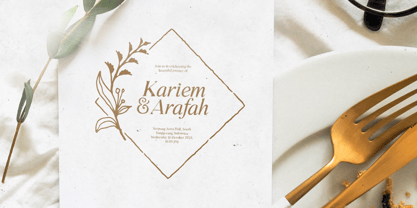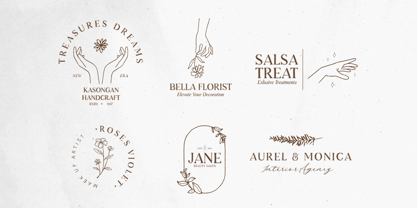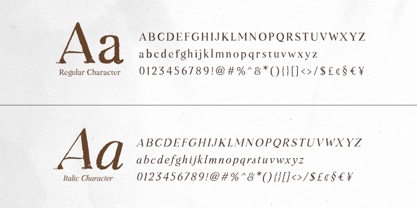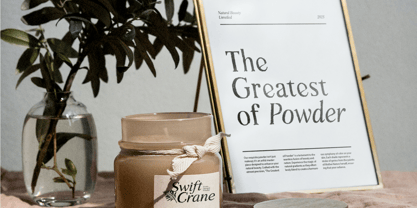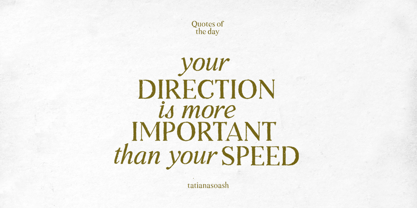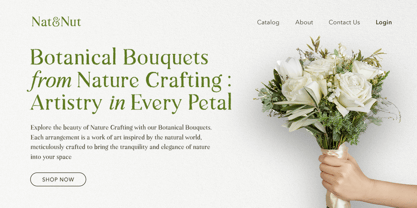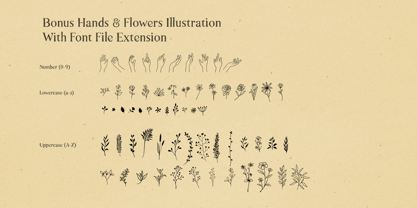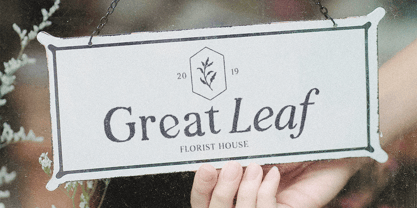
Natural Comforts
by Bale Type
The Natural Comforts Font Family was designed by Sarid Ezra, Liwa Shidqy and published by Bale Type. Natural Comforts contains 3 styles and family package options.
Natural Comforts is a hand-lettered serif family with hands and flowers illustrations. You can use this fonts for any occasions such as quotes, poster, branding, and wedding invitations. With bonus illustrations in fonts format, you can make your own beautiful logo in any software. Natural Comforts also support multi language!